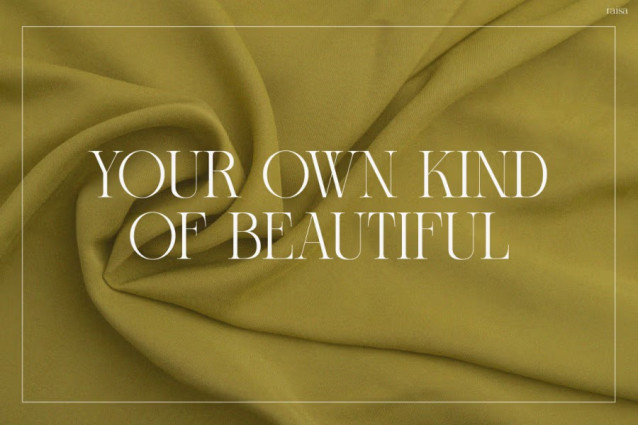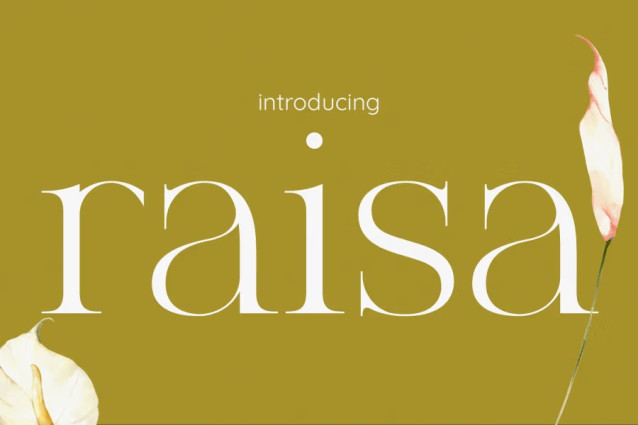
Raisa Font is a sophisticated serif typeface that blends modern elegance with timeless charm. Its sleek curves, refined contrast, and balanced proportions make it the perfect companion for contemporary branding and digital storytelling. Every letter flows gracefully, creating a visual rhythm that feels both luxurious and approachable. Whether you’re designing for a fashion brand, boutique logo, or social media aesthetic, Raisa turns simplicity into pure sophistication.
The beauty of Instagram Font Raisa lies in its quiet confidence. It doesn’t shout for attention — it earns it through refined detail and effortless grace. The thin strokes and subtle serifs give it a soft yet powerful presence, ideal for minimalistic designs that still want to leave a lasting impression. Moreover, the font feels naturally stylish, making it a favorite for creators who want to express elegance with a modern twist.
Thanks to its high readability and clean alignment, it adapts beautifully across print and digital media. Use it in quotes, product packaging, invitations, or promotional banners — and you’ll instantly elevate your brand’s aesthetic.
Perfect For
Instagram Font Raisa is perfect for designers, entrepreneurs, and content creators who want to communicate sophistication through design. It’s especially suited for fashion brands, lifestyle influencers, wedding organizers, and boutique owners who aim to project class and confidence.
Fashion designers can use Raisa for lookbooks, portfolio headers, or product tags. Meanwhile, lifestyle bloggers and influencers will love how it enhances their social media posts, giving every caption and story a premium feel. It’s also perfect for wedding invitations, beauty brand logos, or minimalist website titles — where elegance and clarity must coexist.
Additionally, agencies can apply Raisa in promotional materials or magazine layouts to achieve a luxurious yet modern editorial look. Its versatility makes it equally stunning on digital screens and print designs.
Elegance in Every Letter
With Instagram Font Raisa, your words become more than text — they become an experience. Every curve whispers confidence, and every serif adds a touch of class. Whether you’re crafting a brand identity or styling your Instagram feed, Raisa transforms simplicity into timeless beauty.